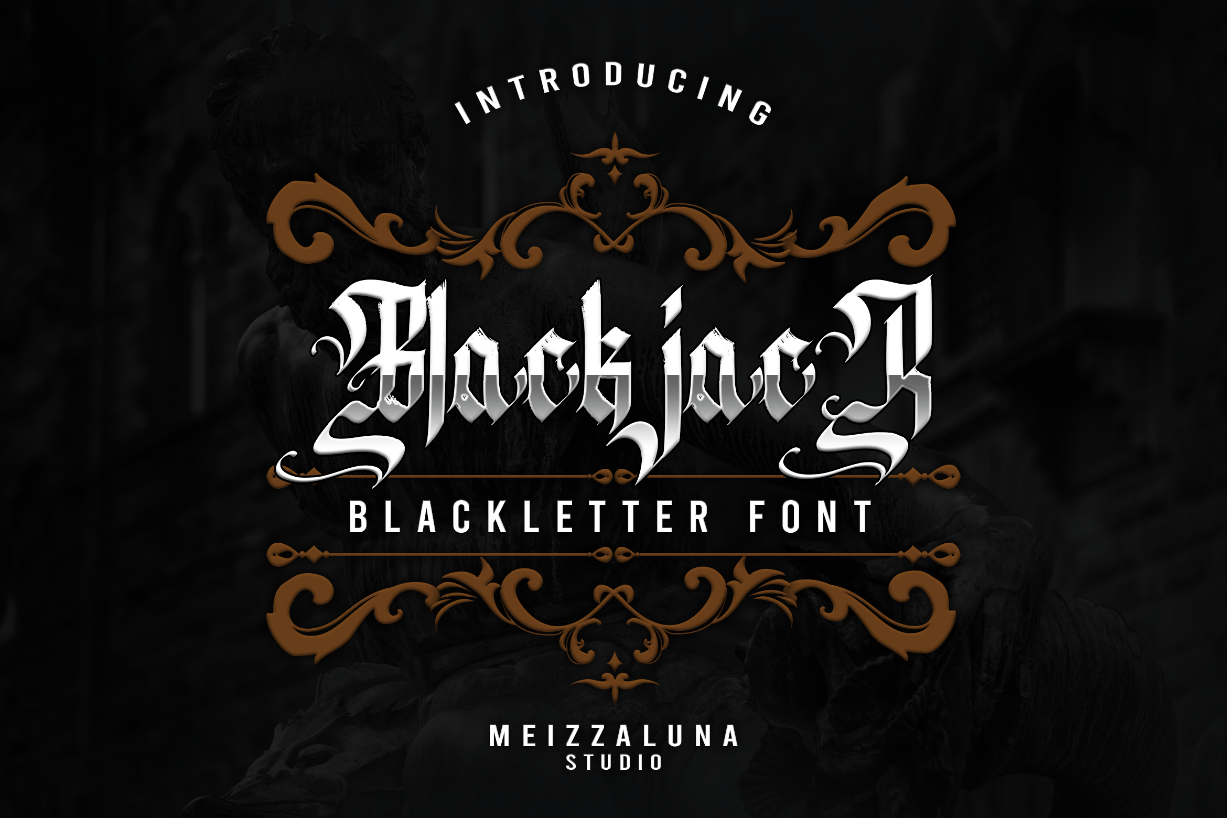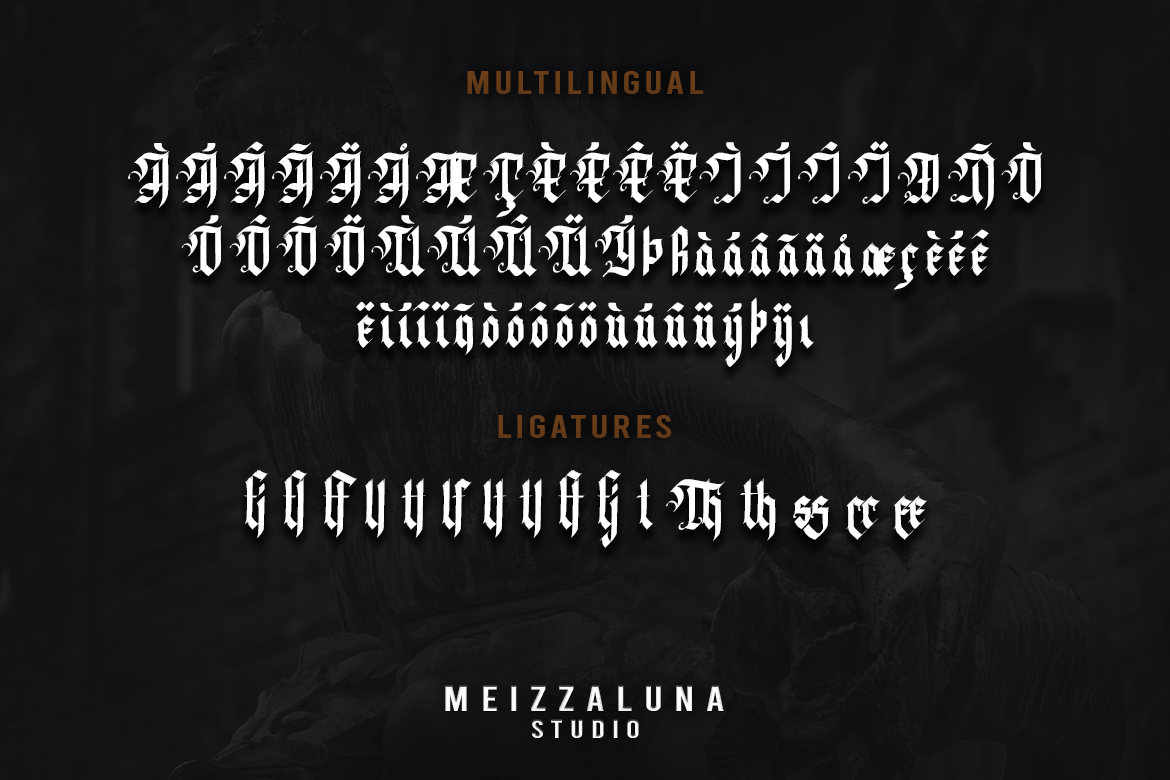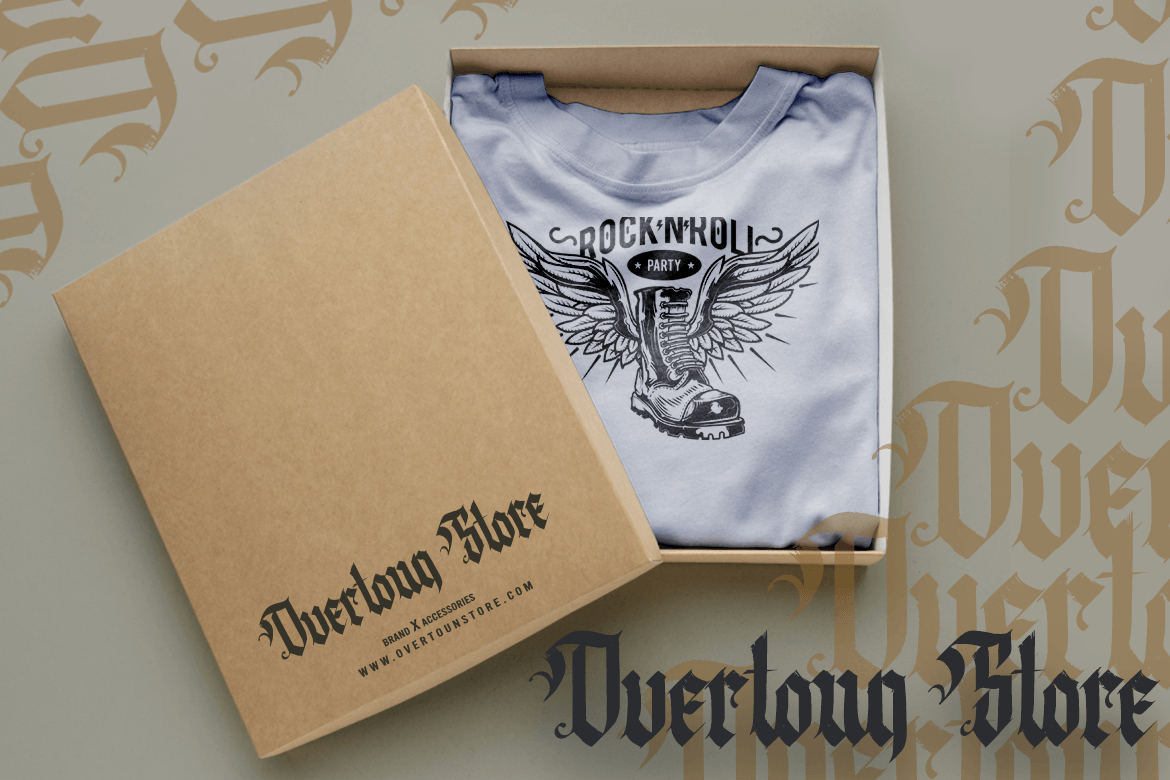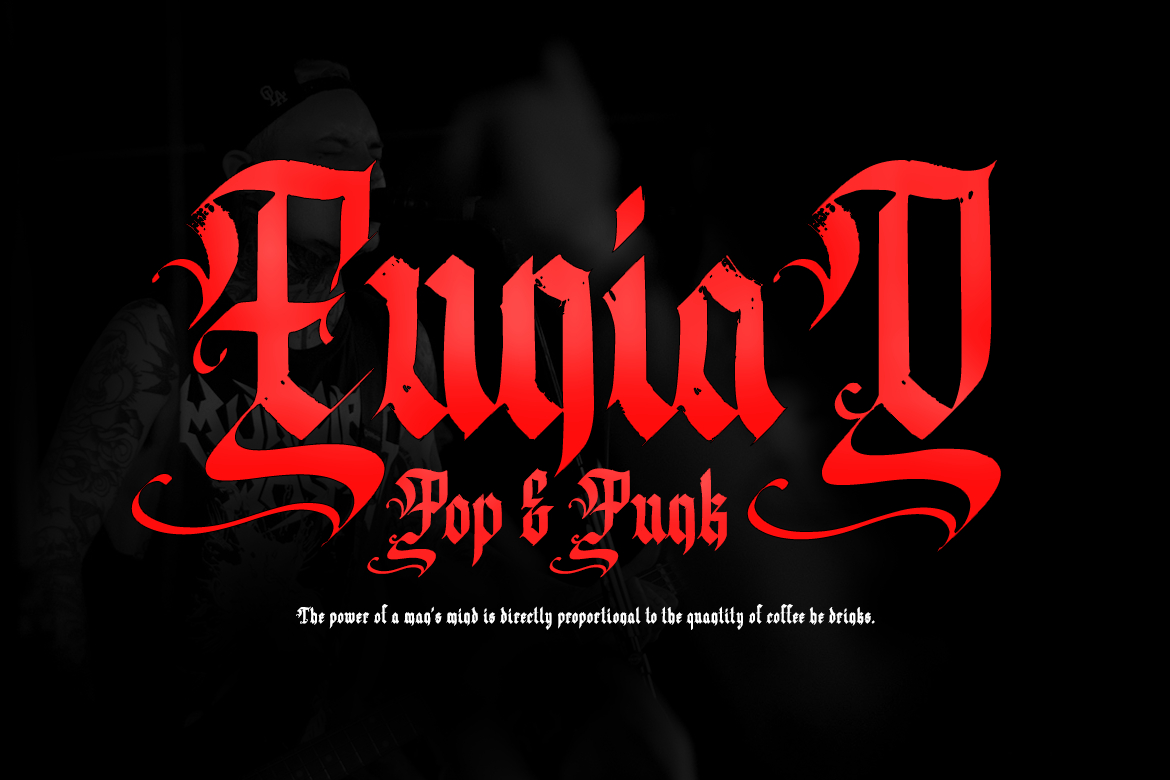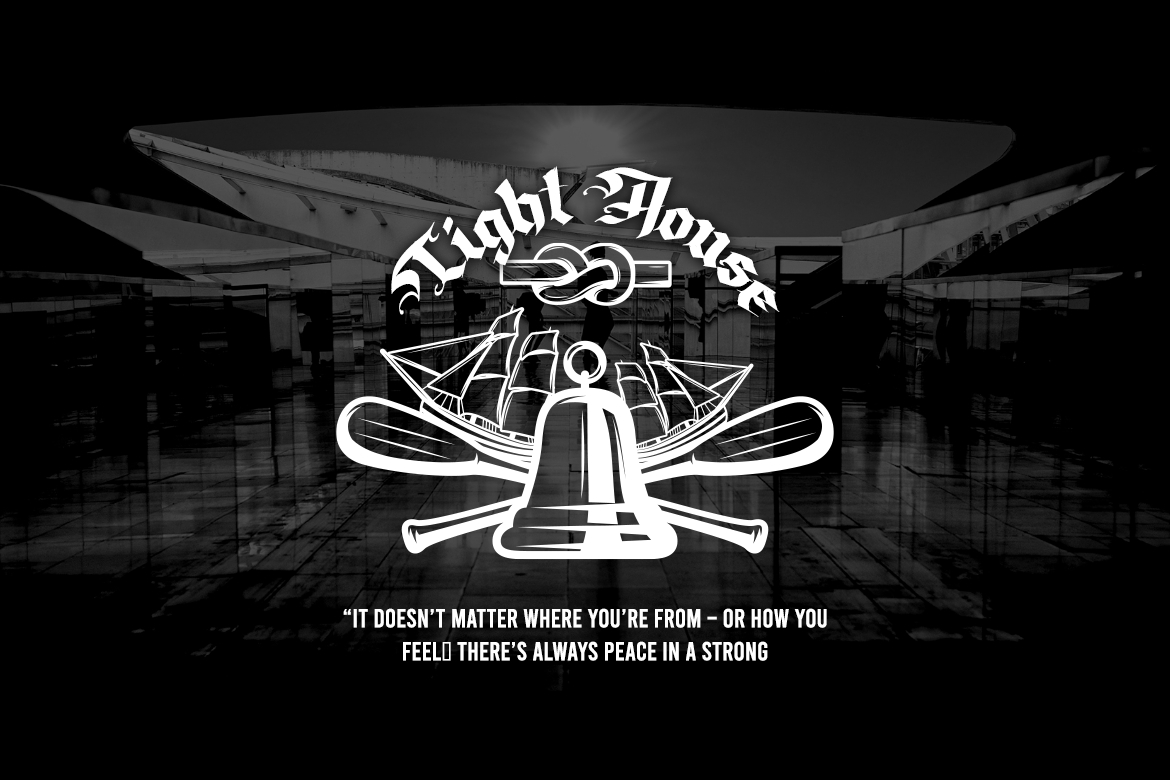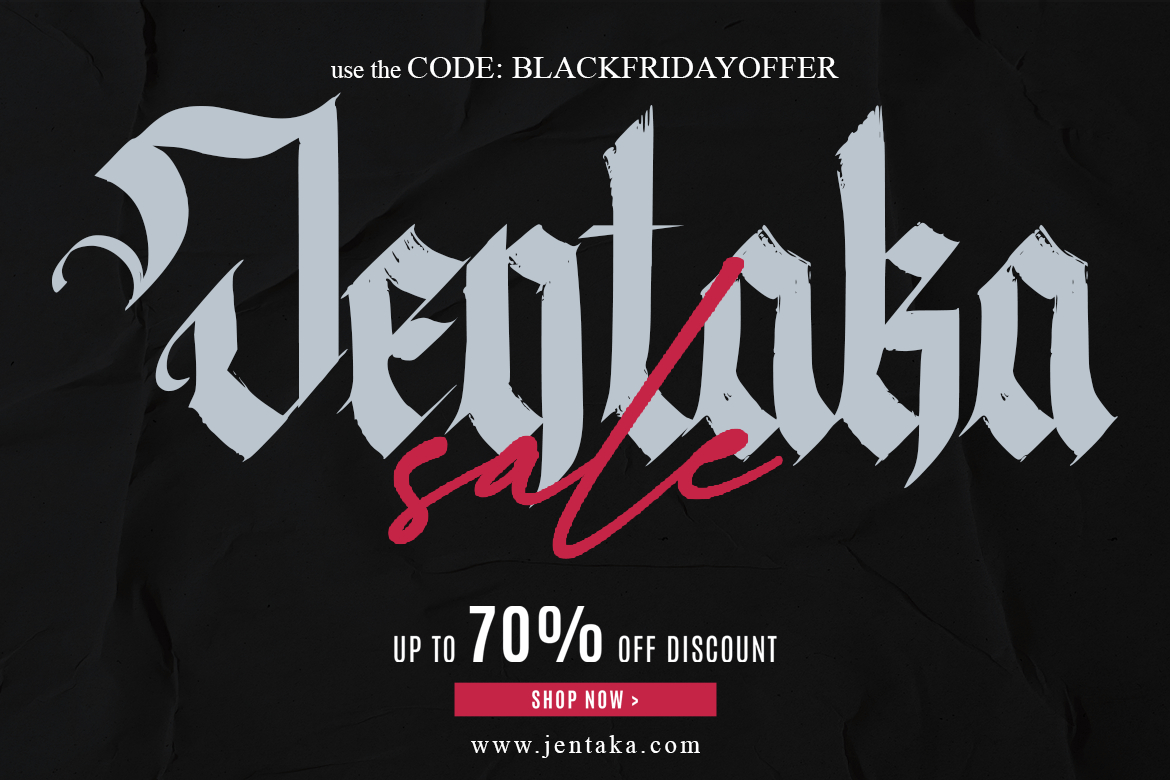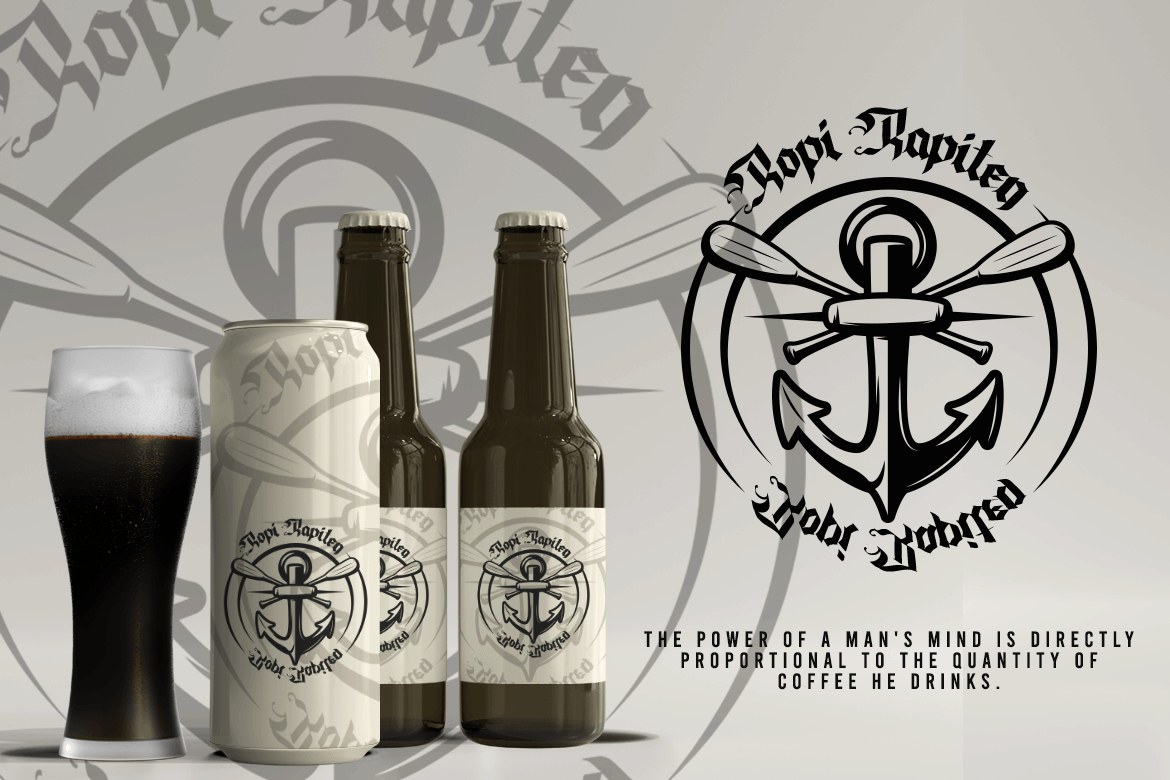
Black Jack Font
About Black Jack Font
Black Jack is an elegant and classic blackletter font that will impress with its stylish features. Use it for product packaging, branding, or other projects that need bold and daring typography!